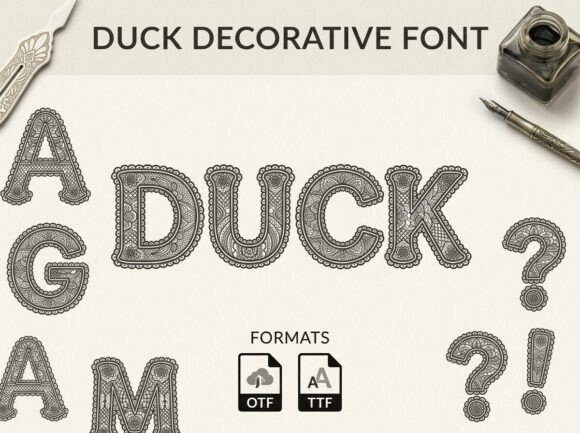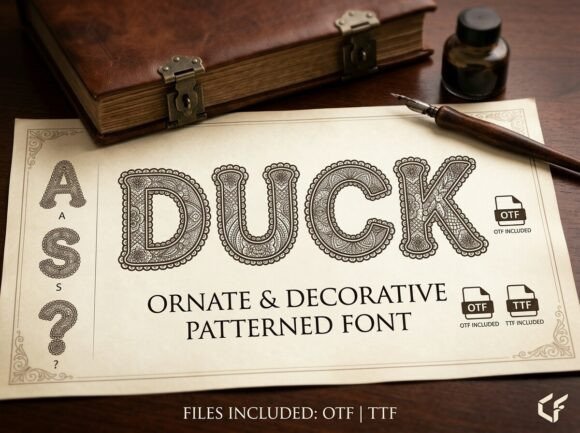
Introducing Duck Font: The Ultimate Decorative Display Font for Creative Projects
Are you tired of using the same old fonts for your designs? Look no further than Duck Font, a stunning decorative display font that’s sure to turn heads. With its unique artistic elements and strong visual personality, this font is perfect for creators who want to break away from the ordinary and make a statement.
Duck Font is designed to be the center of attention, featuring intricate details and creative letterforms that are sure to grab the viewer’s eye. Whether you’re designing a modern poster, a unique brand identity, or eye-catching social media content, this font adds an instant “wow” factor to any project. With its bold and artistic style, Duck Font is ideal for high-impact designs where the typography needs to do the talking.
Duck Font is incredibly versatile, making it perfect for a wide range of design projects. Here are just a few ideas to get you started:
- Poster Design: Create headlines that people can’t look away from with Duck Font. Its bold and eye-catching style is perfect for posters, flyers, and other print materials.
- Branding & Logos: Build a unique identity for creative businesses with Duck Font. Its artistic and professional style makes it perfect for logos, business cards, and other brand materials.
- Apparel & Merch: Perfect for T-shirts, hoodies, and tote bag designs, Duck Font adds a touch of personality and style to any apparel or merchandise.
- Social Media Content: Make your social media content stand out with Duck Font. Its bold and eye-catching style is perfect for creating engaging and shareable content.
Why Choose Duck Font?
So why choose Duck Font over other decorative display fonts? Here are just a few reasons:
- Unique Artistic Elements: Duck Font features unique artistic elements that set it apart from other fonts. Its intricate details and creative letterforms make it perfect for designs that need a little extra something.
- Professional and Polished Finish: Despite its bold and artistic style, Duck Font maintains a professional and polished finish that’s perfect for designs that need to look sleek and sophisticated.
Tips for Using Duck Font
Here are a few tips for using Duck Font in your designs:
- Use it Sparingly: While Duck Font is perfect for headlines and titles, it’s best to use it sparingly. Too much of a good thing can be overwhelming, so use it to make a statement and then switch to a simpler font for the rest of the design.
- Experiment with Colors: Duck Font looks amazing in a wide range of colors, so don’t be afraid to experiment and find the perfect color for your design.
- Pair it with a Simple Font: For body text and other smaller design elements, pair Duck Font with a simple font to create a striking contrast.